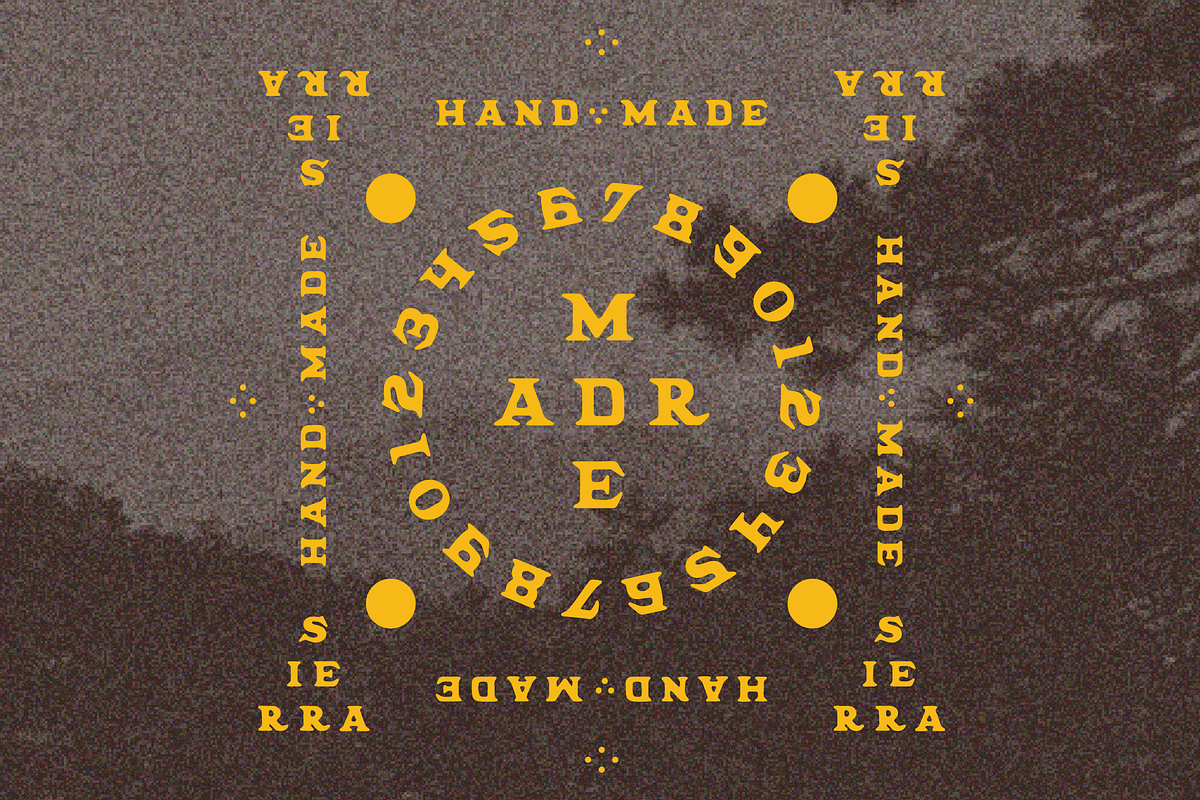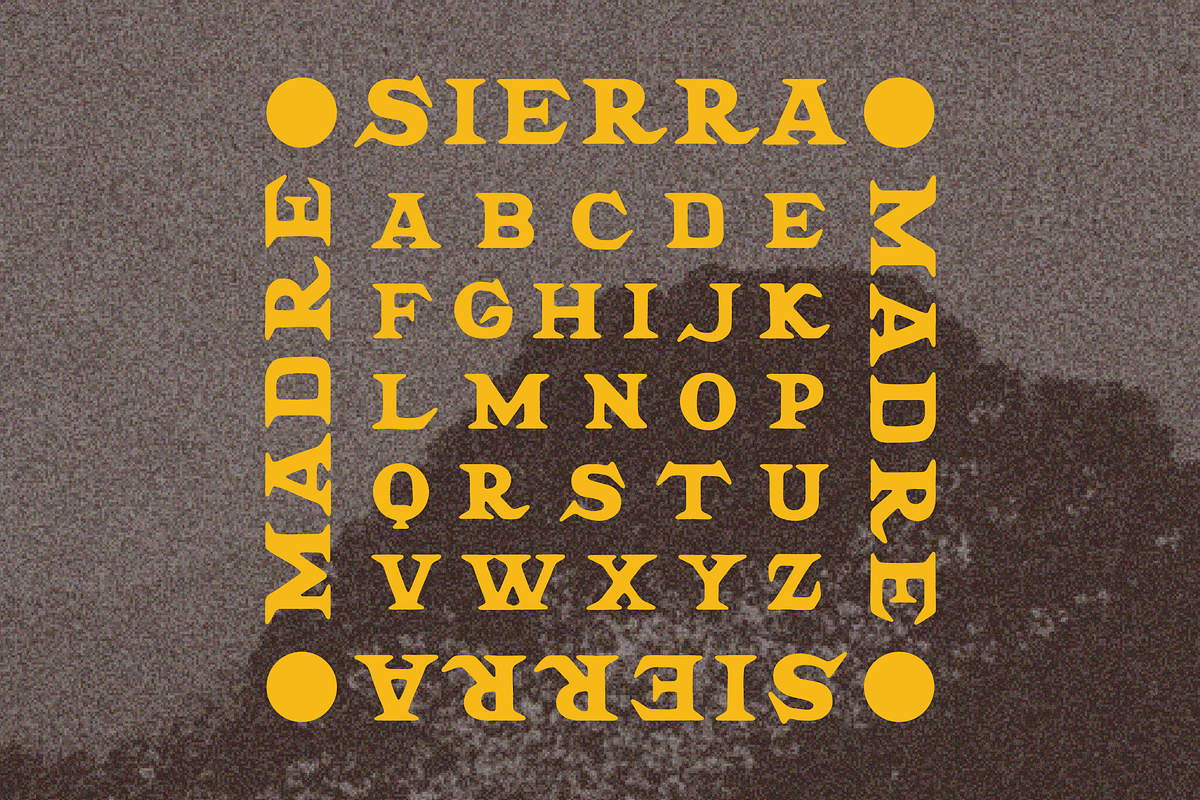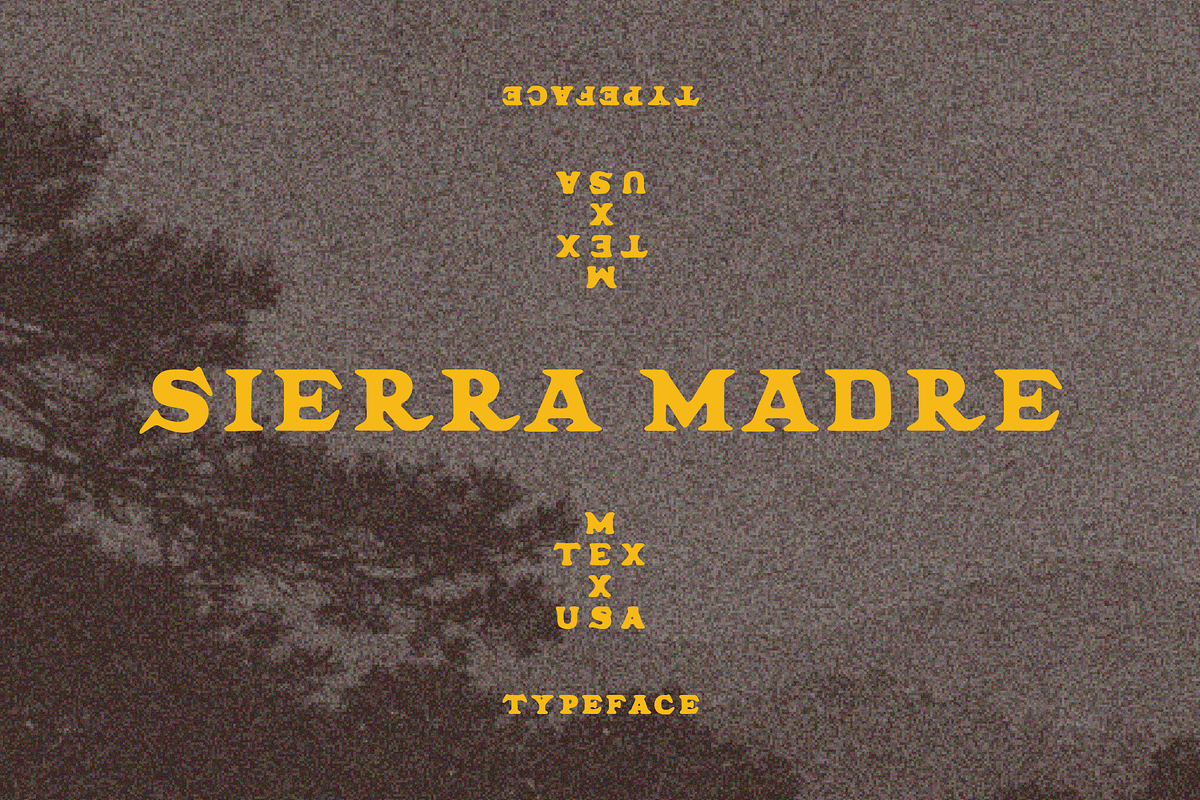
Sierra Madre Font
Sierra Madre draws its influence from the rugged mountain ranges and desert edges of northern Mexico and the American Southwest. Named after its dramatic terrain, the typeface carries a weathered, sun-bleached character shaped by erosion, heat, and distance. Built with a sense of endurance and quiet weight.